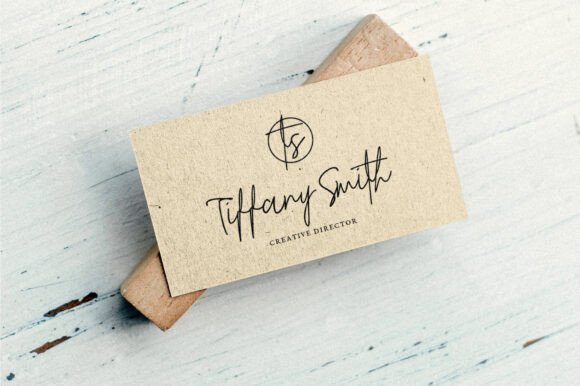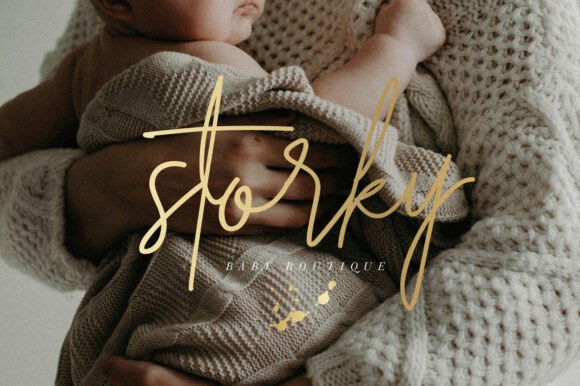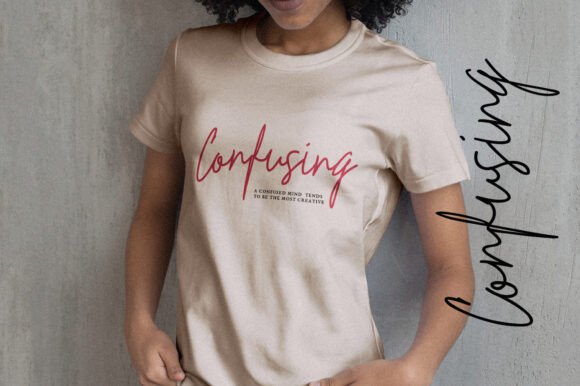
Introduction to Signathy Font
Signathy is an elegant script font with charming letters.
It will add a romantic touch to any crafting project .
Key Features of Signathy Font
Why Choose Signathy Font?